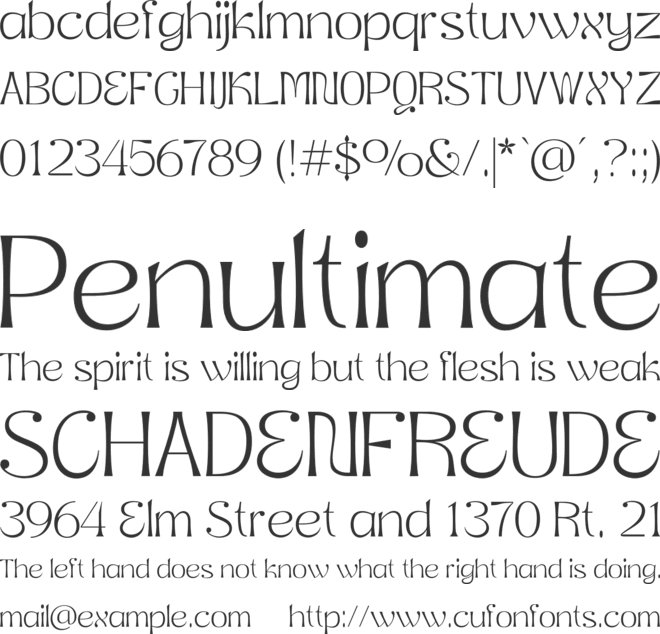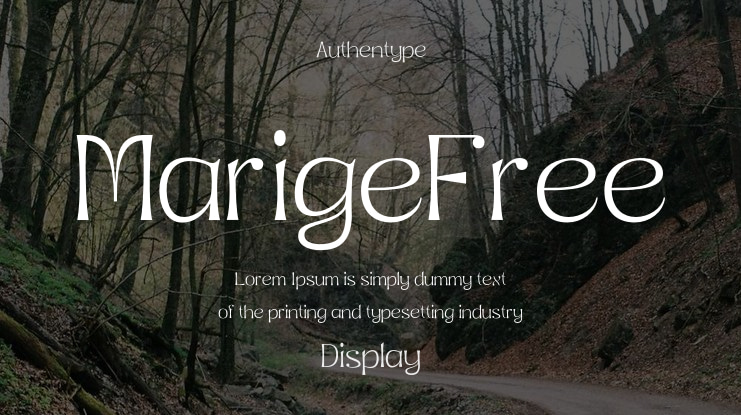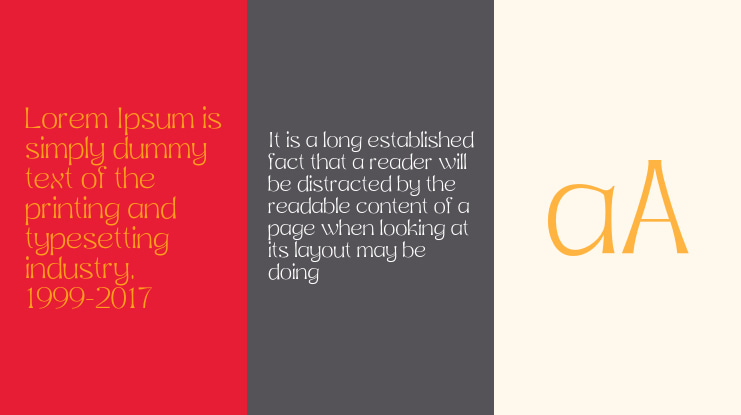
MarigeFree Font
Authentype
Marige display typeface is a family of 9 weights that make it easy to create visual typography designs ranging from thin to black.